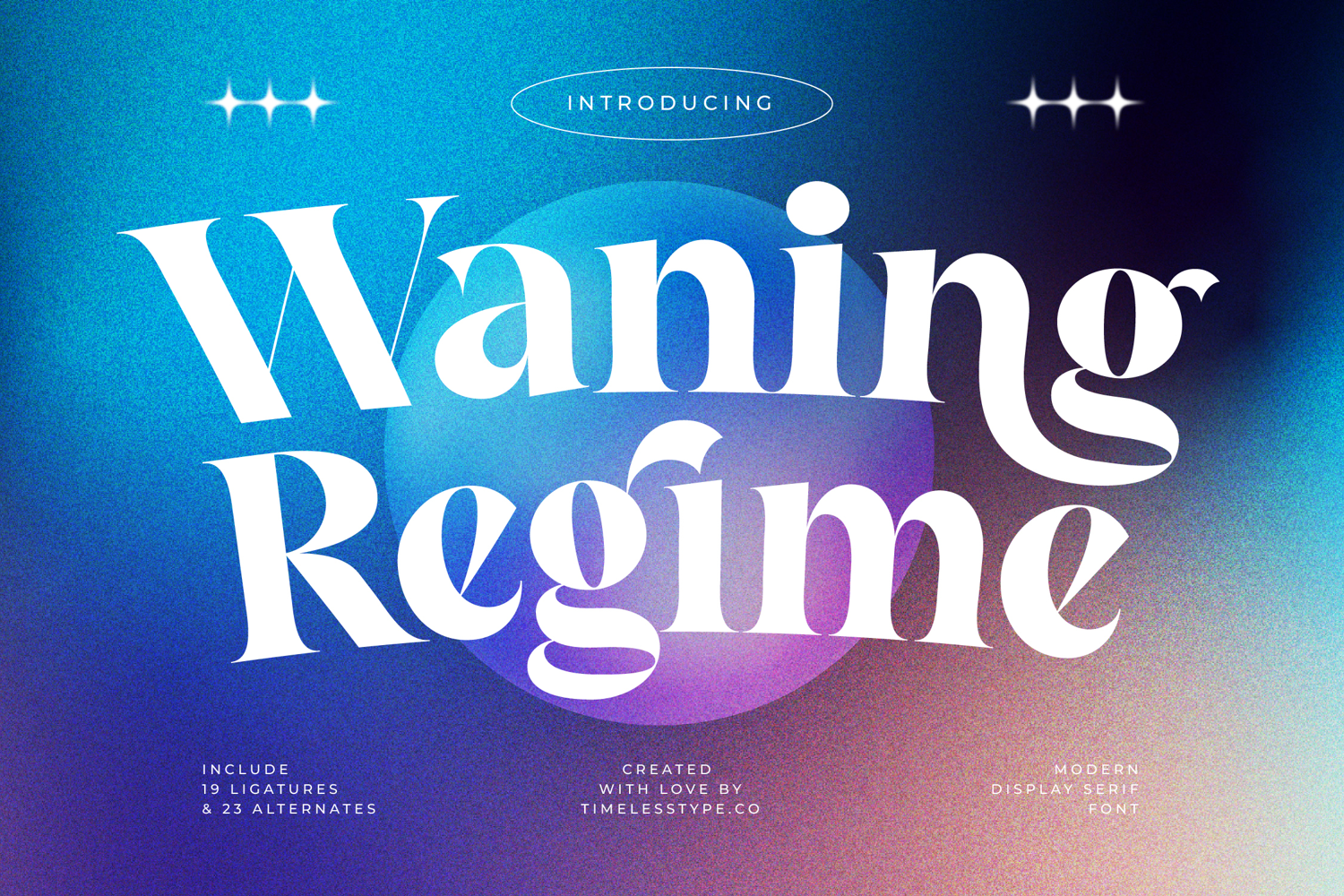
Waning Regime Modern Display Serif
Waning Regime
Waning Regime italic
Step into a world where timeless elegance meets contemporary edge with Waning Regime, a font designed to command attention from the very first glance. This display serif captures the essence of sophisticated drama, transforming every word into a visual masterpiece for the modern creator.
Inspired by the ethereal transition of twilight and the sharp, defined shadows of high-fashion photography, this typeface was born from a desire to blend classical proportions with a rebellious spirit. It mirrors the shifting atmosphere of a moonlit sky, offering a unique balance between heavy, grounded strokes and delicate, sweeping curves.
Waning Regime is the epitome of modern serif display excellence, offering a luxury typography experience that is both bold and nuanced. This high-contrast serif is an essential editorial font for those who need to make a lasting branding impact, ensuring that your headlines resonate with authority and grace.
Perfectly aligned with the current modern serif trend, this typeface is a response to the growing demand for editorial display fonts that offer more than just legibility. Its character-driven typography taps into the contemporary aesthetic, making it a powerful tool for designers looking to stay ahead of the curve in a fast-paced digital landscape.
Whether you are crafting a high-end logo design or building a cohesive identity for branding, this font delivers unmatched versatility. From the sophisticated pages of editorial layouts and luxurious packaging to the romantic details of a wedding suite or the bold statements of a fashion lookbook, it adapts seamlessly to your vision.
This comprehensive toolkit includes a rich selection of ligatures and alternates that allow for custom typographic expressions without extra effort. Designed for a global audience, the font features extensive multilingual support and a wide range of international characters, while the unique swashes provide that final touch of bespoke flair.